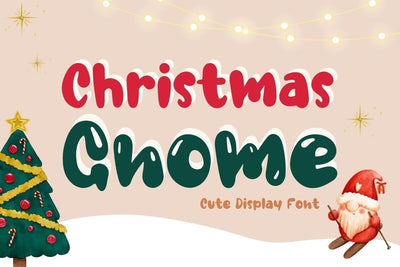
Christmas Gnome - Cute Font
Christmas Gnome is a fun groovy display font. With its casual charm, this font is perfect for a wide pool of design ideas. You can design it to match the Christmas and Gnome themes. Perfect for creating a wide variety of new designs such as banners, content, mugs, cards, shirts, stationery, social media posts, and more!